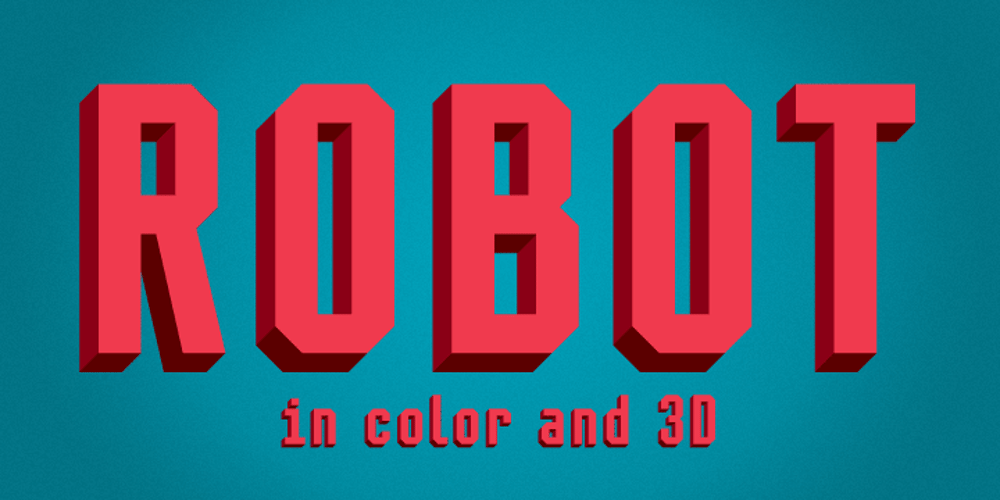
Mr Robot Font Family was designed by Aleksandra and Daniel Mizielińscy and published by Hipopotam Studio. Mr Robot contains 5 styles and family package options. Mr Robot is a typeface designed for our next book for children. We wanted to have a colorful, dimensional and edgy looking letters for headlines. There are three ways to use Mr Robot. You can align three text frames with same text but with different colors and font styles (Regular, Shadow 1 or Shadow 3 and Shadow 2) or with ALLinONE font style but select a different OpenType Stylistic Sets (set 1 is like Shadow 1, set 2 like Shadow 2 and set 3 like Shadow 3). This works great but we don’t like to have unnecessary text frames in our layouts so we added a very cool Contextual Alternates OpenType feature. You just need Mr Robot ALLinONE style and only one text frame. First make sure that Contextual Alternates is off. Type every character three times (RRROOOBBBOOOTTT), select colors for each letter (first letter of every three is a side shadow, second is bottom shadow and third is a front of the dimensional letter). When everything is set just turn Contextual Alternates back on. Styles and alignment will be set automatically. Check out the Users Manual for a visual explanation. For web fonts it is better (at least for now) to use the first method (with font styles) as the OpenType features are not supported in older browsers.